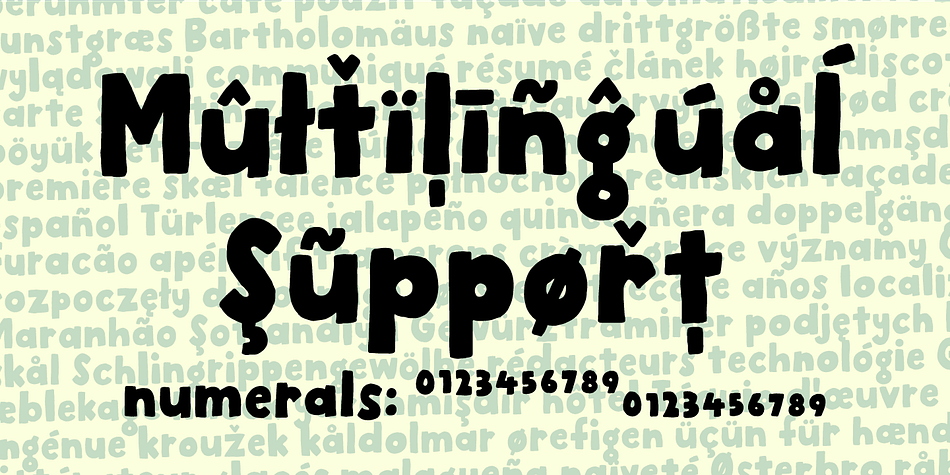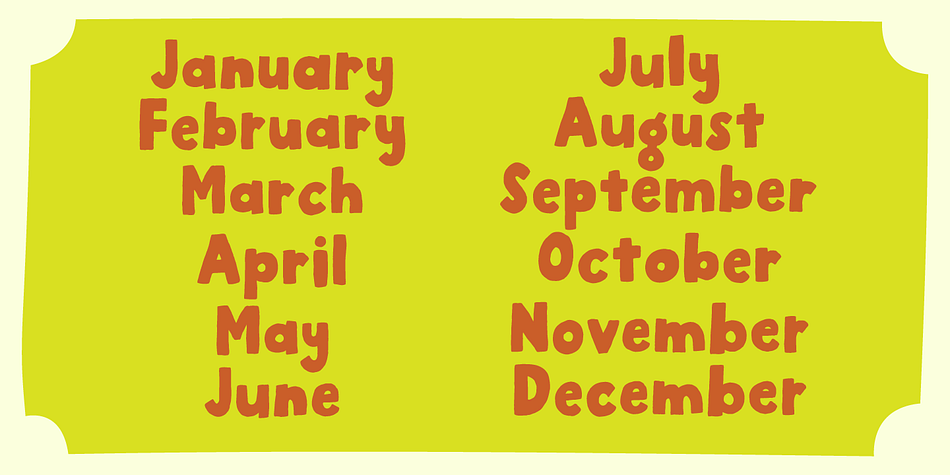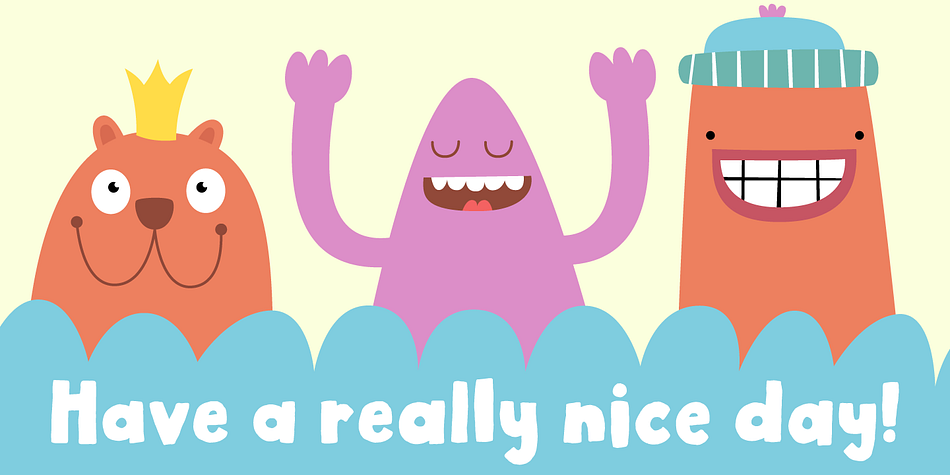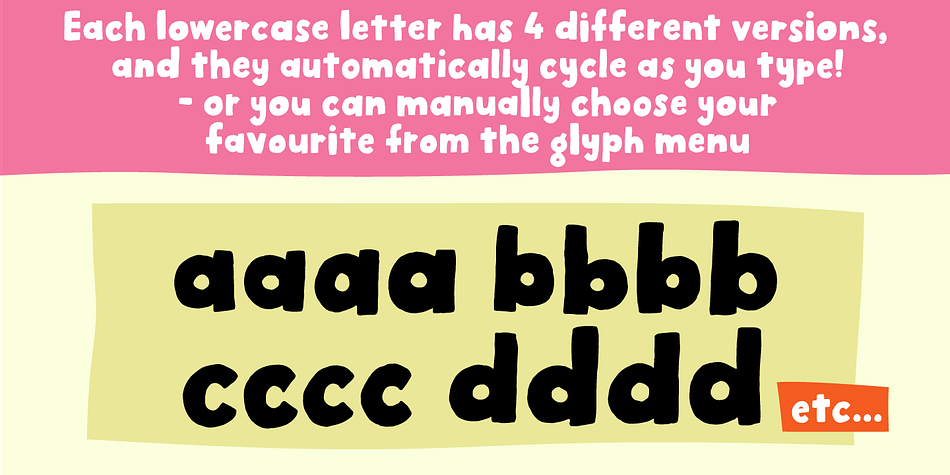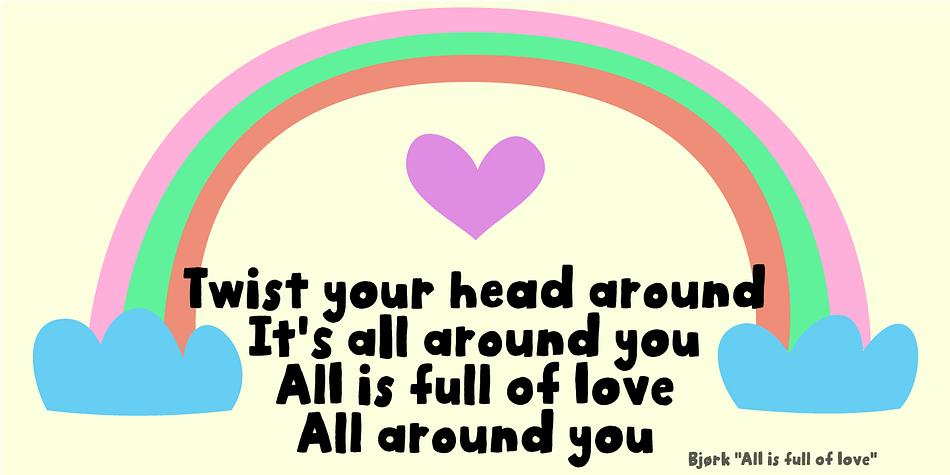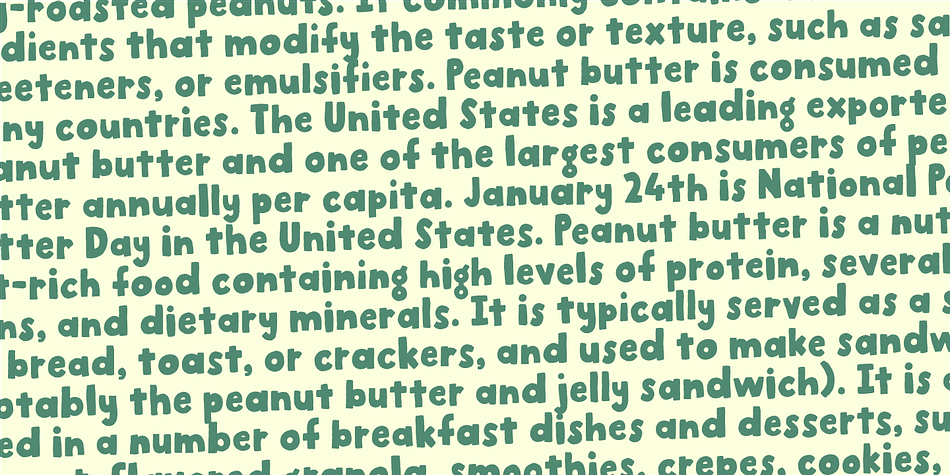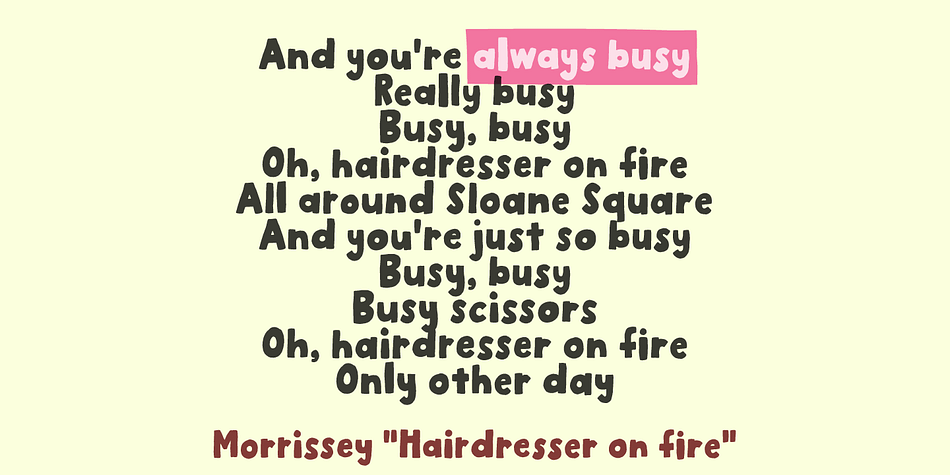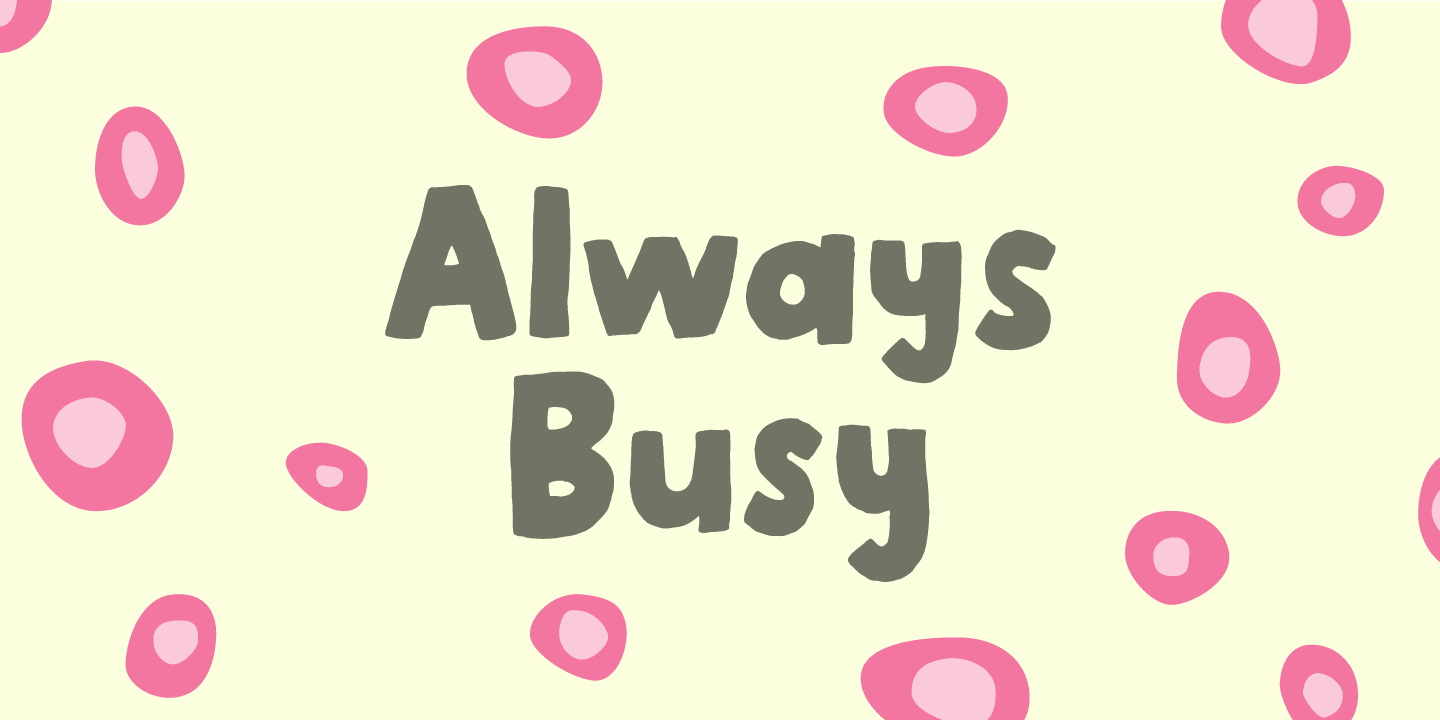
Designed by Jakob Fischer, Always Busy is a hand display and hand drawn font family. This typeface has two styles and was published by Bogstav.
Always busy is. my easy-to-read and simple kids comic font. You can tell that it is handmade, because I really didn’t do much about the inkblobs and the lines that are a bit off here and there.
I added 4 different versions of each lowercase letter, and they automatically cycle as you type!